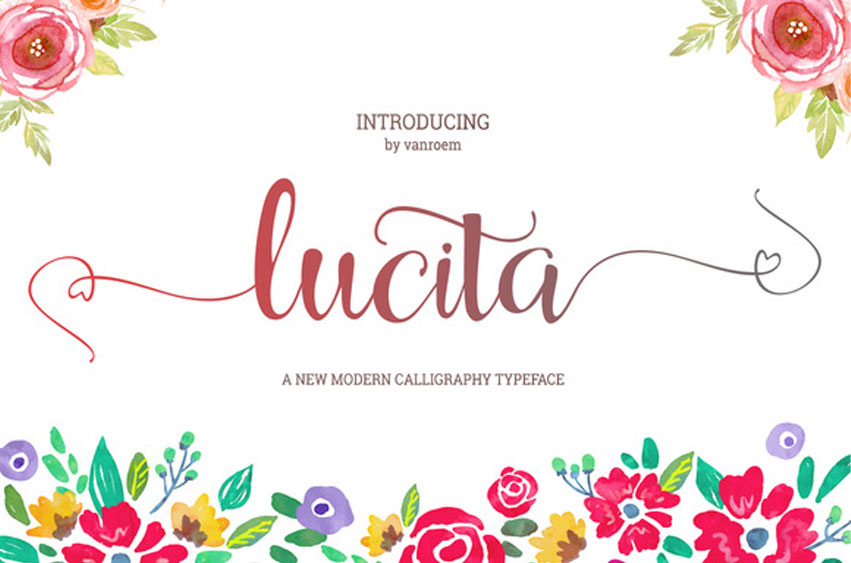
Lucita Font is a beautiful elegant script font that combines old calligraphy font design with a modern look and feel. The result is a fresh handwritten font that is suitable for many purposes.
Lucita comes with 318 hand-drawn glyphs. Each glyph was designed individually to match the others, which makes it a very pleasant and easy font to read.
Lucita is a rich OpenType font that is feature-packed. The features include:
– PUA Encoding (Private Use Area)
– Initial Alternates
– Terminal Alternates
– Standard Ligatures
– Stylistic Sets
– Swashes & Swooshes